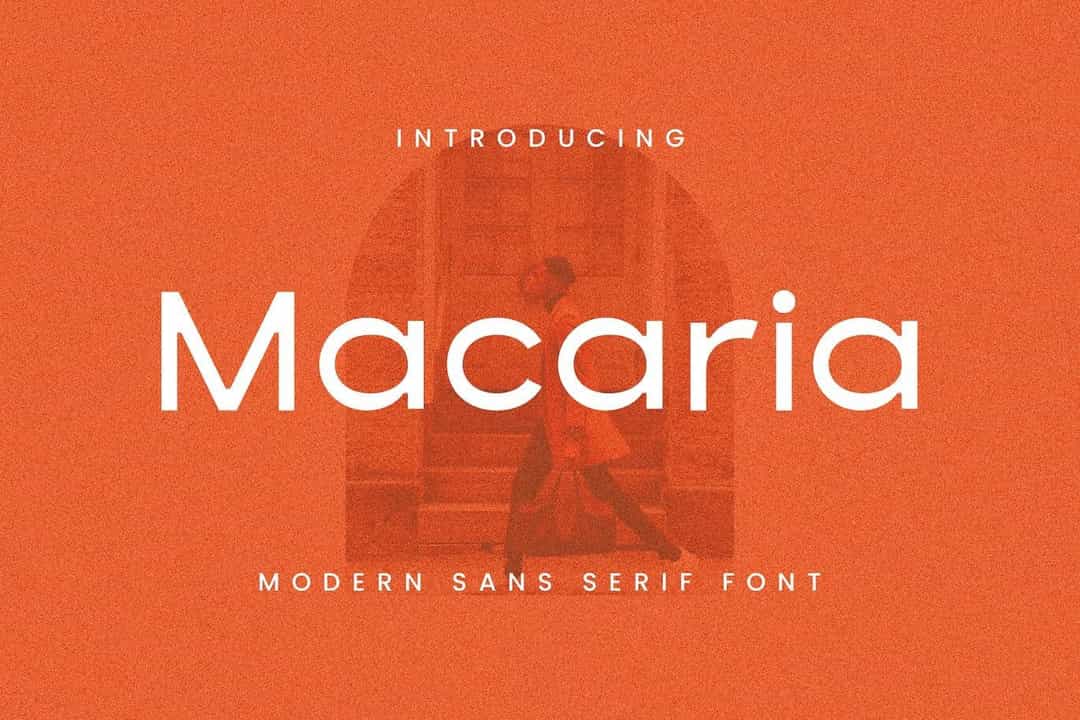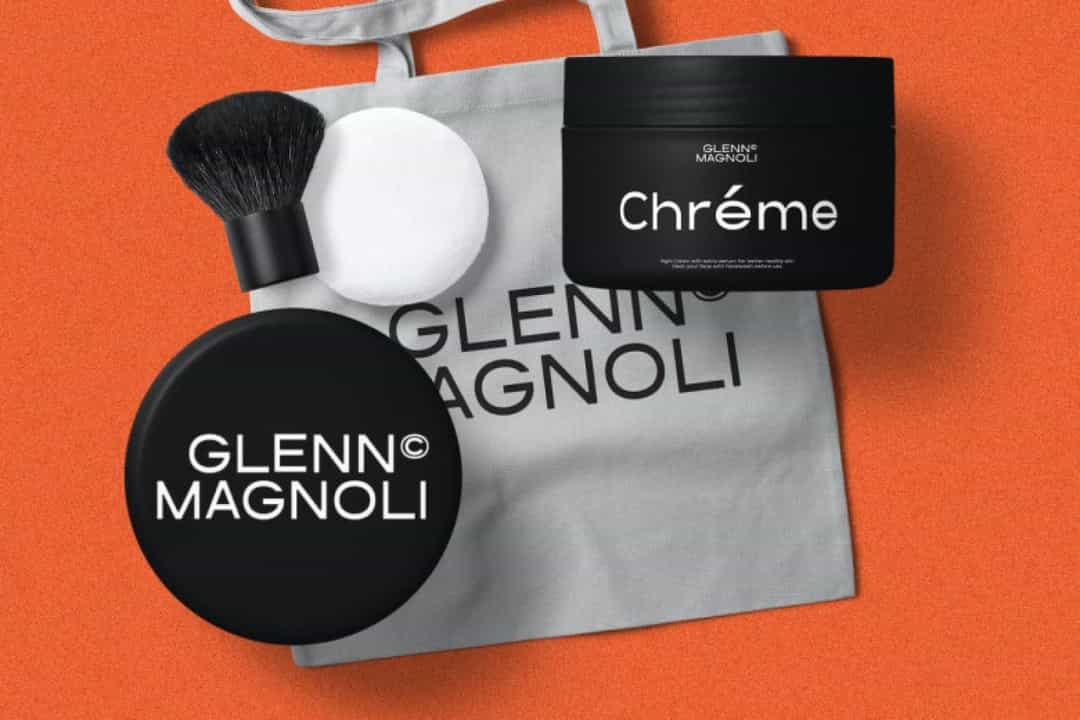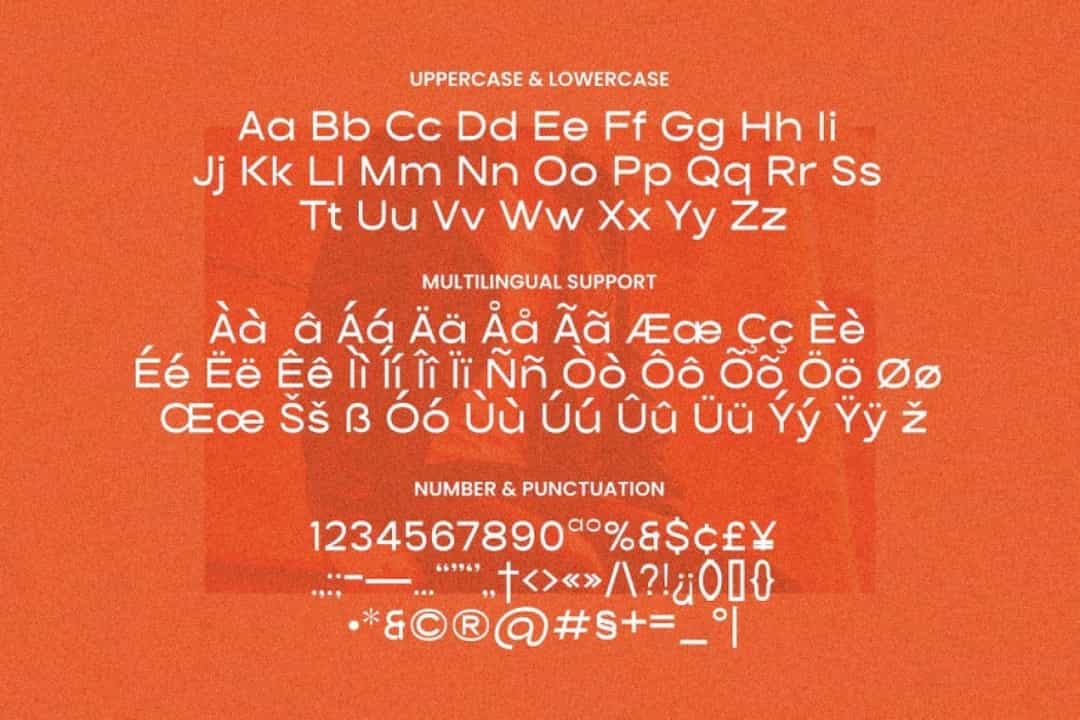
Macaria is a sophisticated modern sans serif font design featuring simple, clean lines with soft curves and stunning ligatures that makes an impressionful first impression. Available both small and large sizes.